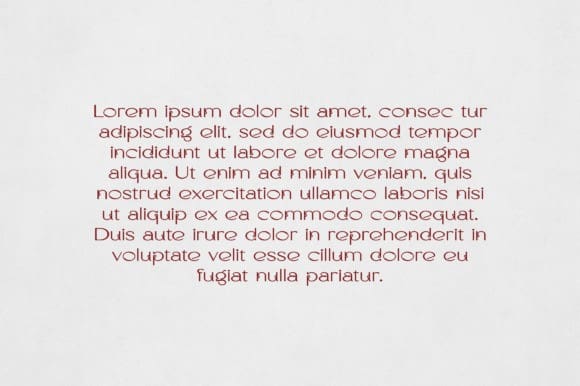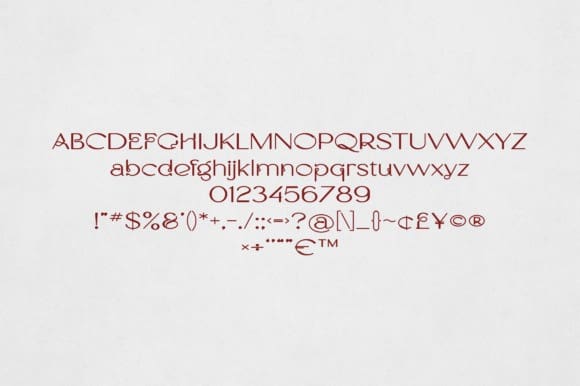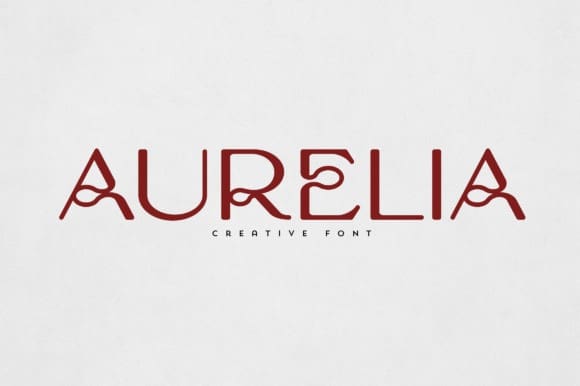
Aurelia Font
Aurelia Font is an elegant and versatile font that will make your typography truly unique! It will enchant every logo, branding, headline, or plain text!